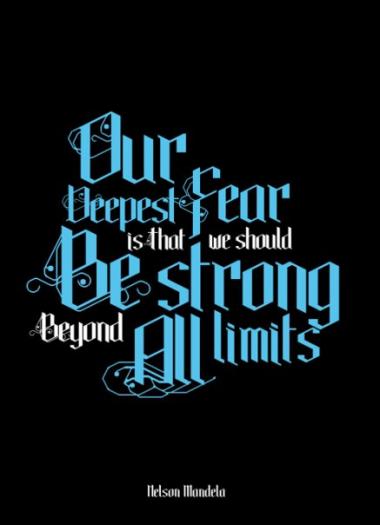
Erika deco
Alternate version of Erika. With decoration on caps. :)
Blackletter
Here is a new version of Erika, the Erika deco !
A good addition to the already worthy Erika ... great sample as well :)
wow, that Q is gorgeous, keep up the good work!
This is just frickin' awesome!
I love this fairy font, and your sample as well.
(it's not finished yet, is it?)
Keep going, zen! It certainly work like this, but it might work even better (the original Erika giving the choice of non-deco caps). In my opinion, your spidery swashes are too beautiful and intriguing to stop now.
Brilliant at the beginning of the capitals, but it seems to loose it's sparkle near the begginning of the lower case. |:
Glad to see it all come together so well.
May I suggest you try an alternate Uppercase "T", the one you have right now is missing a bit of panache!
thanks jmarquez for your comment, here is another T :)